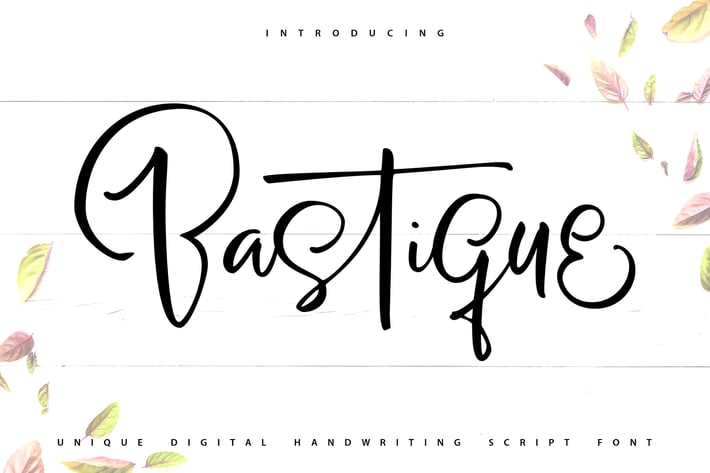
Bastique | Unique Handwriting Script Font
Bastique | Unique Handwriting Script Font with a calligraphy style, So beautiful on invitation like greeting cards, branding materials, business cards, quotes, posters, and more!